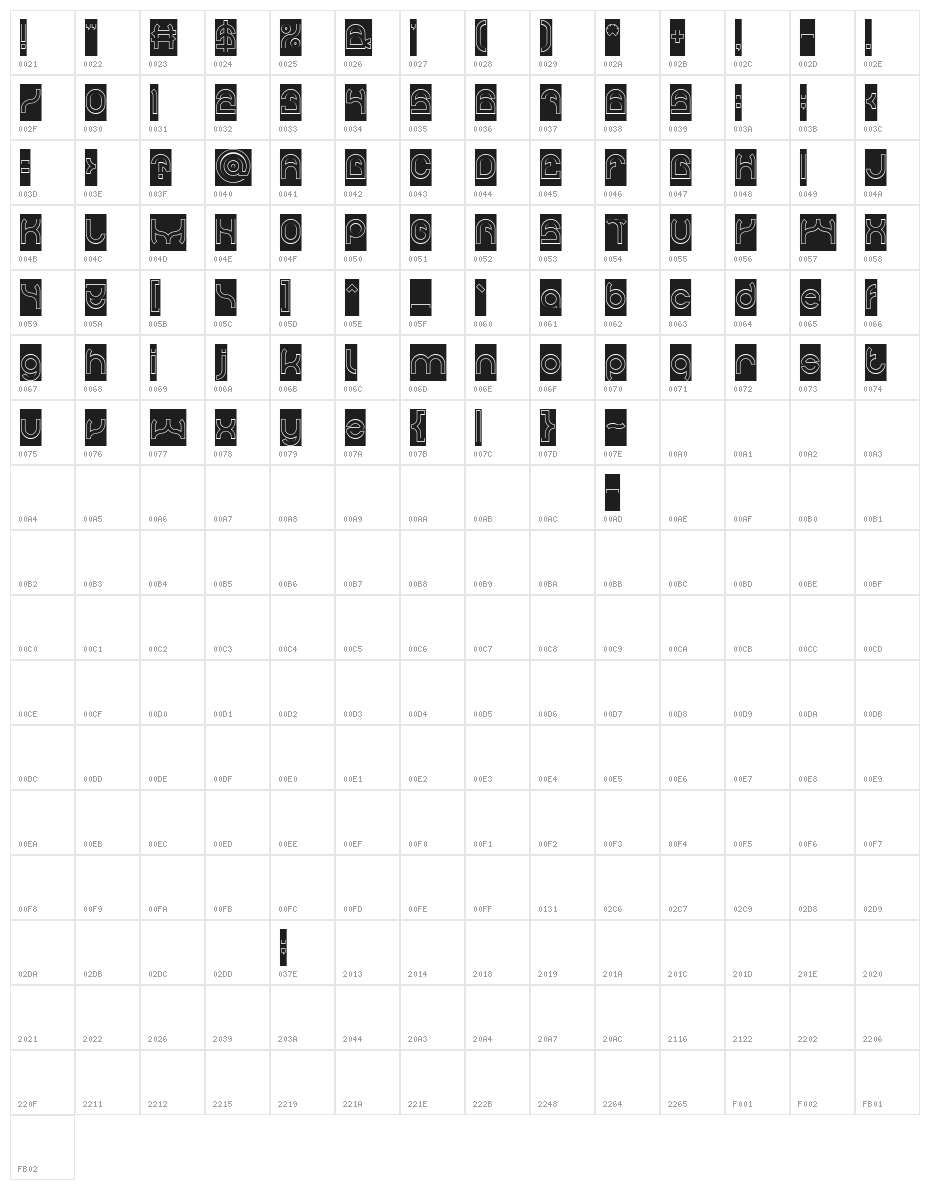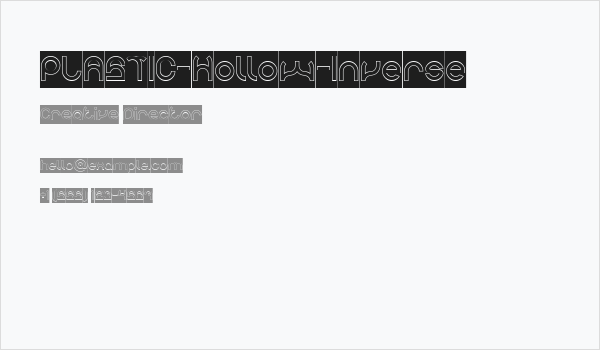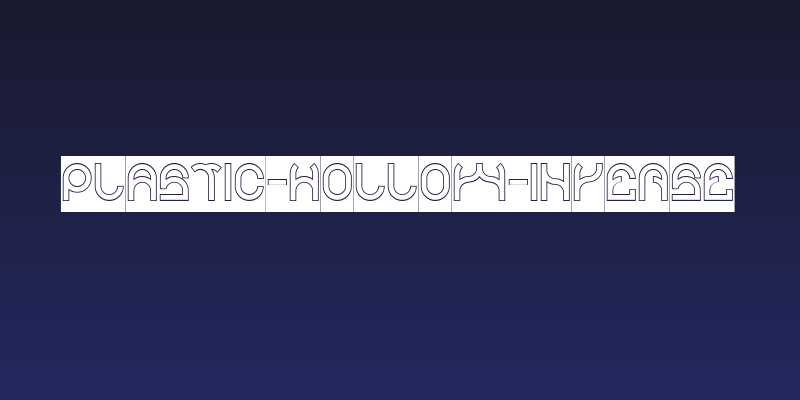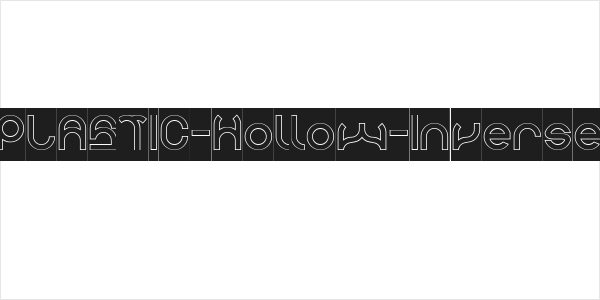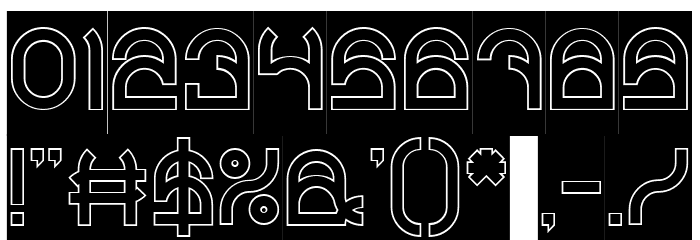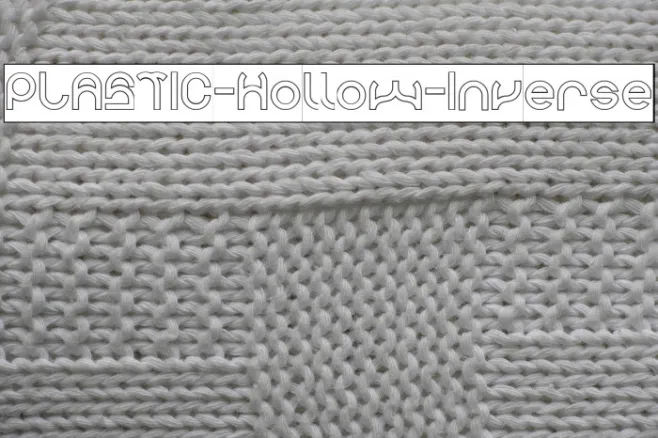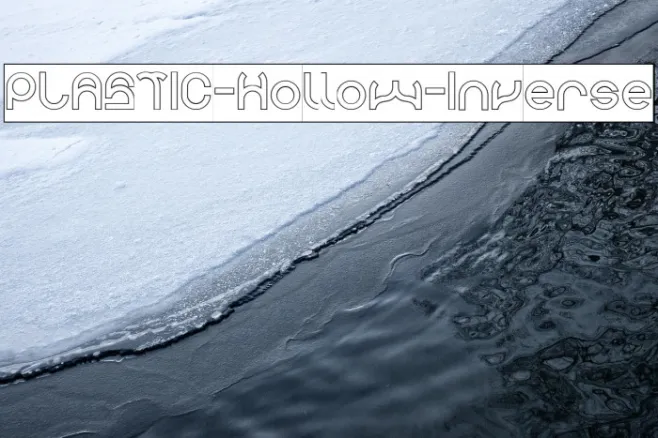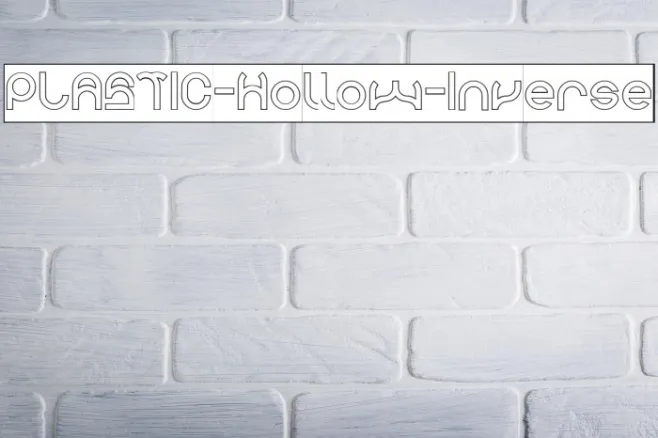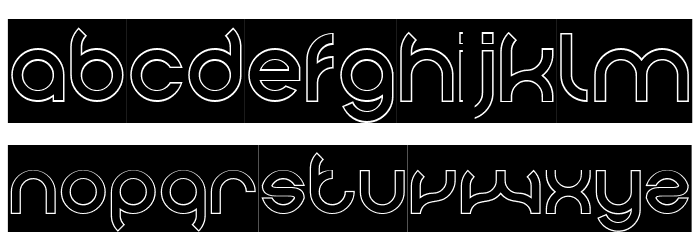
PLASTIC-Hollow-Inverse Font
PLASTIC-Hollow-Inverse Description
This font features a unique hollow design with an inverse style, creating a striking visual effect. The characters are outlined with a consistent stroke width, giving them a modern, futuristic appearance. The uppercase and lowercase letters maintain a cohesive look, with rounded edges and geometric shapes. Numbers and special characters are designed to match the overall aesthetic, ensuring uniformity across all glyphs. The font's hollow nature makes it ideal for designs where a bold yet airy presence is desired.
| Proposed Projects | Ideal for futuristic branding, tech-related designs, posters, and digital media where a modern and airy look is desired. |